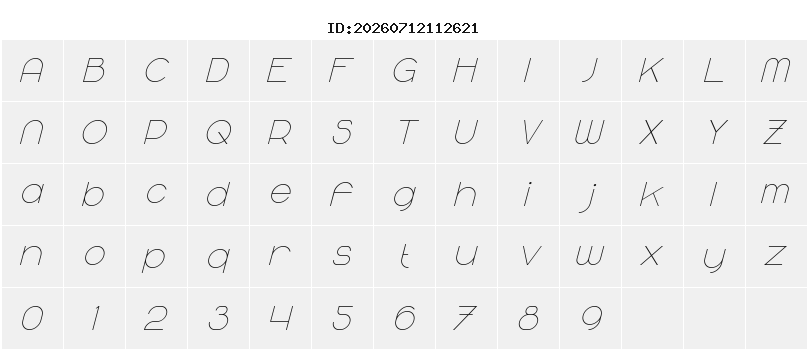
Majoram Preview
• Font Name: Majoram
• Font ID: Majoram Italic: Version 2.00
• Full Font Name: Majoram Italic
• Version: Version 2.00 - June 17, 2013
• PostScript Name: Majoram-Italic
• Designer: Neale Davidson
About Majoram.ttf
Majoram.ttf is a modern, elegant sans-serif font designed for ultimate readability and visual harmony. Perfect for branding, headlines, web design, and print materials.